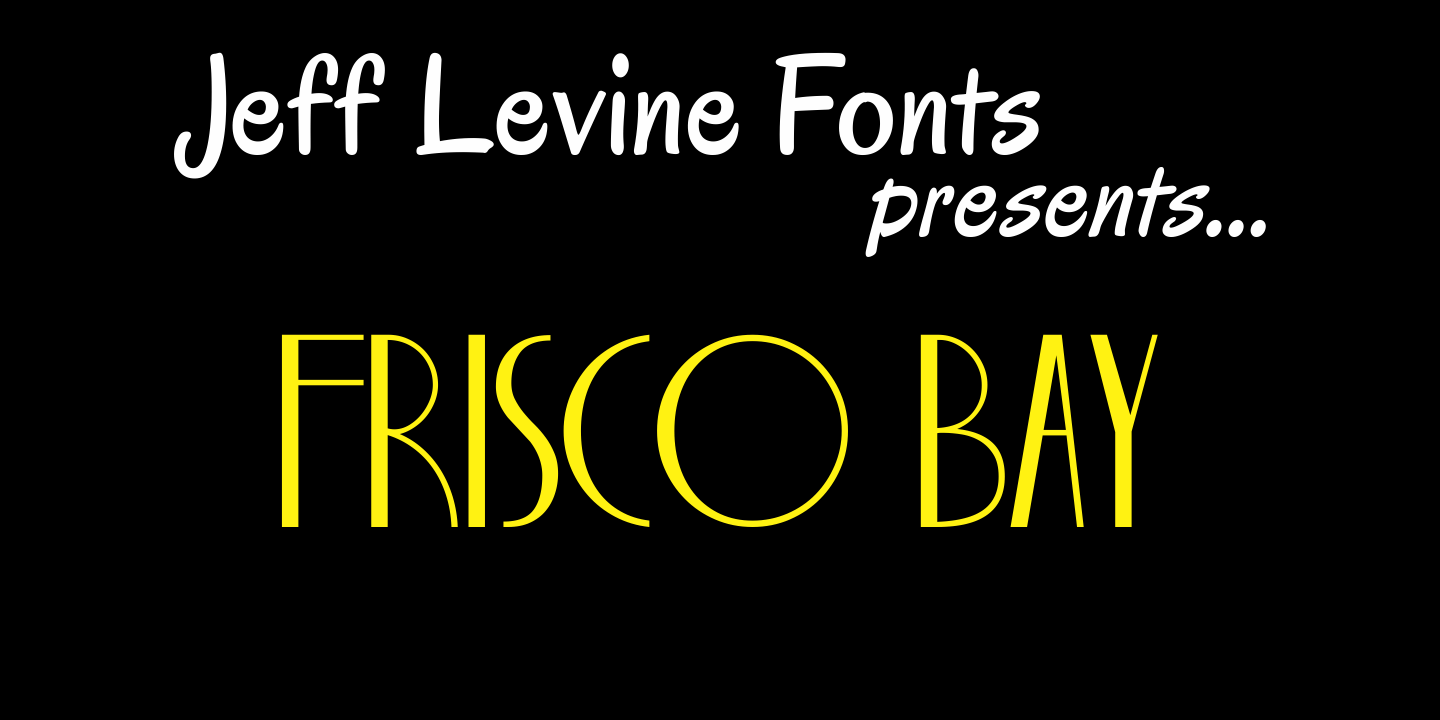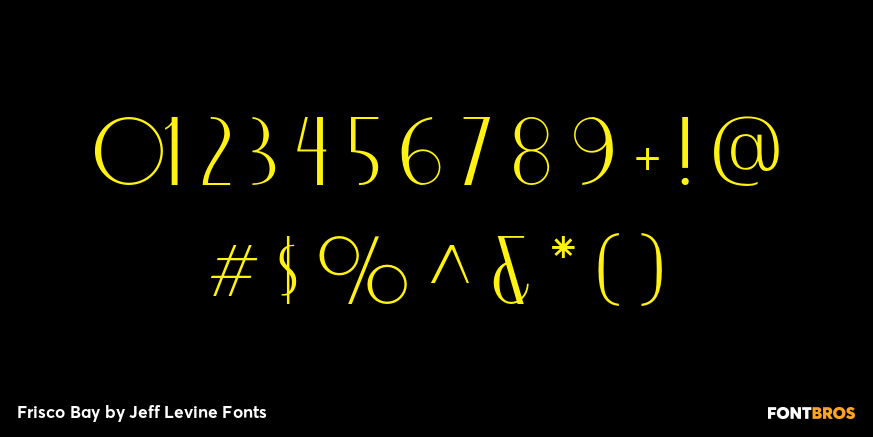
Frisco Bay
Frisco Bay JNL is an entirely original design from Jeff Levine with strong Art Deco influences.
A medium weight letter form, this design finds itself at home in any application where a touch of elegance from the past is needed.